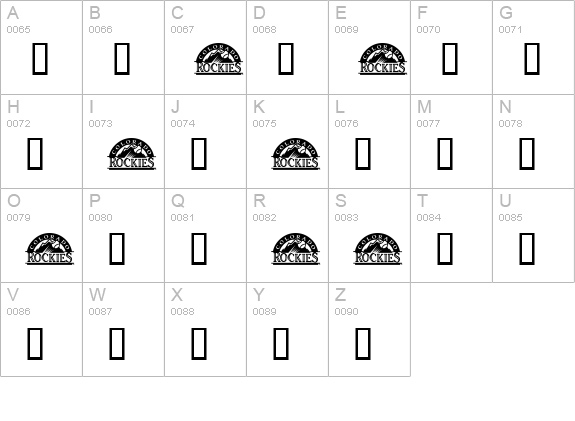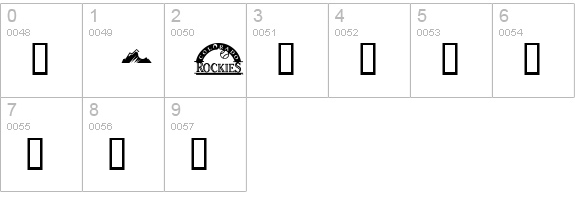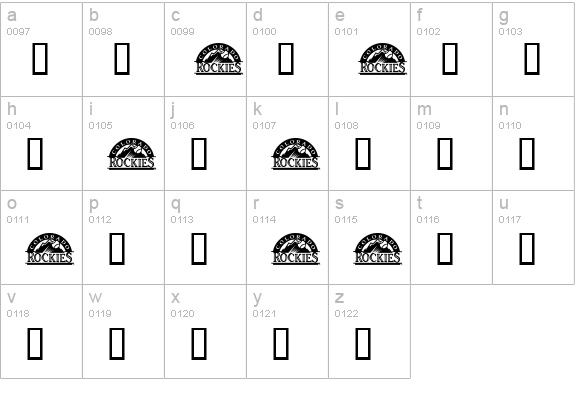
Rockies Font Details
The Rockies font is a stunning display typeface that exudes a sense of rugged beauty and natural charm. Inspired by the majestic Rocky Mountains, this font features bold, angular letterforms that evoke a sense of strength and resilience. Its unique design makes it perfect for headlines, logos, and other eye-catching designs. The Rockies font is available for free download at FontsMarket.com, allowing you to add a touch of wild beauty to your projects without breaking the bank. Embrace the untamed spirit of the Rockies font and elevate your designs to new heights.